1. Introduction
Fonts are more than just letters—they’re visual voices that shape how people perceive your message. Whether you’re creating a logo, a website, or packaging, the right font can elevate your design and strengthen your brand identity.
In this guide, we’ll explore how to choose the right font for your design and share some beautiful font examples from RaisProject to inspire your next creative project.
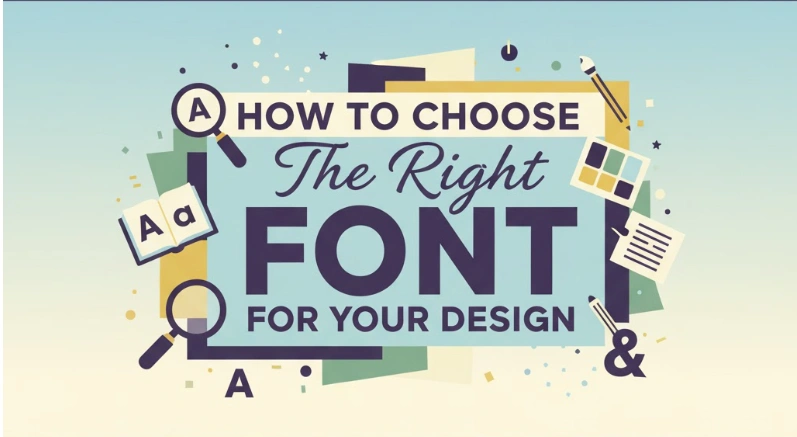
2. Why Choosing the Right Font Matters
Typography influences how your audience feels about your brand before they even read your words. A luxury perfume brand using a playful handwritten font would feel inconsistent, while a minimalist tech brand wouldn’t fit a decorative serif.
The right font helps you:
- Communicate tone and personality clearly.
- Create visual harmony and brand consistency.
- Capture attention and make your design memorable.
As noted by Adobe Fonts Blog, typography is both an art and a science — combining emotional storytelling with technical precision.
3. Understanding Font Classifications
Each font style has its own personality and best use case. Understanding them will help you make more intentional design choices.
Serif Fonts
Serifs are classic and timeless. They add elegance and trust to your design—perfect for editorials, fashion, or luxury branding.
💡 Try Rodger Arnoud Font, a modern serif with sophisticated curves that fits premium brands beautifully.
Sans Serif Fonts
Sans serif fonts look modern, clean, and highly readable. They’re excellent for digital designs, technology brands, and startups.
💡 Try Break Sucker Display Font, a bold and unique sans serif with character—perfect for eye-catching headlines.
Script Fonts
Display Fonts
Display fonts are decorative and made for attention. Use them for titles, posters, or logos—but sparingly.
💡 Dariena Floralie Font is a stunning floral-themed display font that brings creativity and luxury to any design.
For more insight, see Creative Bloq’s typography guide, which explains how font classification impacts visual tone.
4. How to Match Fonts with Design Purposes
Different design projects call for different font styles. Here’s how to make the right match:
a. Branding and Logos
Your logo font should reflect your brand’s core identity. Serif fonts communicate professionalism, sans serifs convey innovation, and scripts add personality.
Adobe Design suggests pairing fonts that balance contrast and harmony for a timeless brand feel.
b. Print Design
For printed media, readability is key. Serifs work beautifully for books or brochures because they guide the eye naturally through text.
c. Web Design
Screen readability matters most online. Sans serif fonts are the safest for websites and mobile interfaces, while display fonts can make headers stand out.
See Adobe Design’s article on responsive typography for deeper insights.
d. Social Media & Advertising
For social posts and campaigns, go bold. Use strong display fonts like Break Sucker Display Font for main messages and pair them with subtle sans serifs for balance.
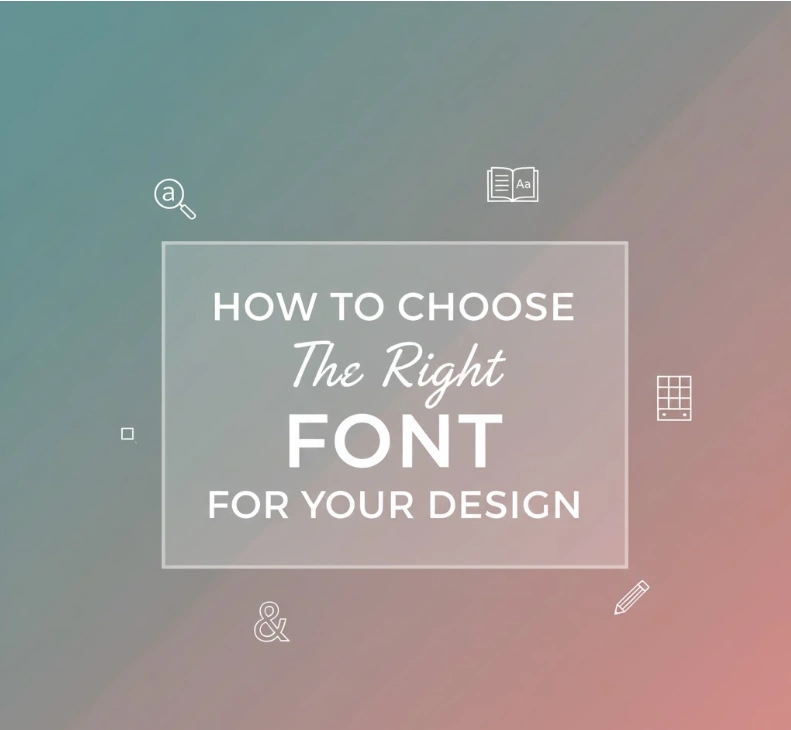
5. The Psychology of Typography
Fonts subconsciously influence how people feel about your design. Here’s what each major type communicates:
| Font Type | Conveys | Best Used For |
|---|---|---|
| Serif | Tradition, trust, class | Editorial, luxury, heritage brands |
| Sans Serif | Modernity, clarity | Startups, web design, tech |
| Script | Elegance, personality | Beauty, lifestyle, invitations |
| Display | Creativity, uniqueness | Ads, posters, packaging |
According to Adobe’s research on font psychology, typography directly affects emotional perception — making your choice crucial for brand messaging.
6. Common Mistakes When Choosing Fonts
Even skilled designers can slip up. Avoid these pitfalls:
- ❌ Using too many fonts in one design (stick to 2–3 max).
- ❌ Ignoring readability for style.
- ❌ Poor contrast between font and background.
- ❌ Overusing decorative fonts.
- ❌ Skipping device or print tests before publishing.
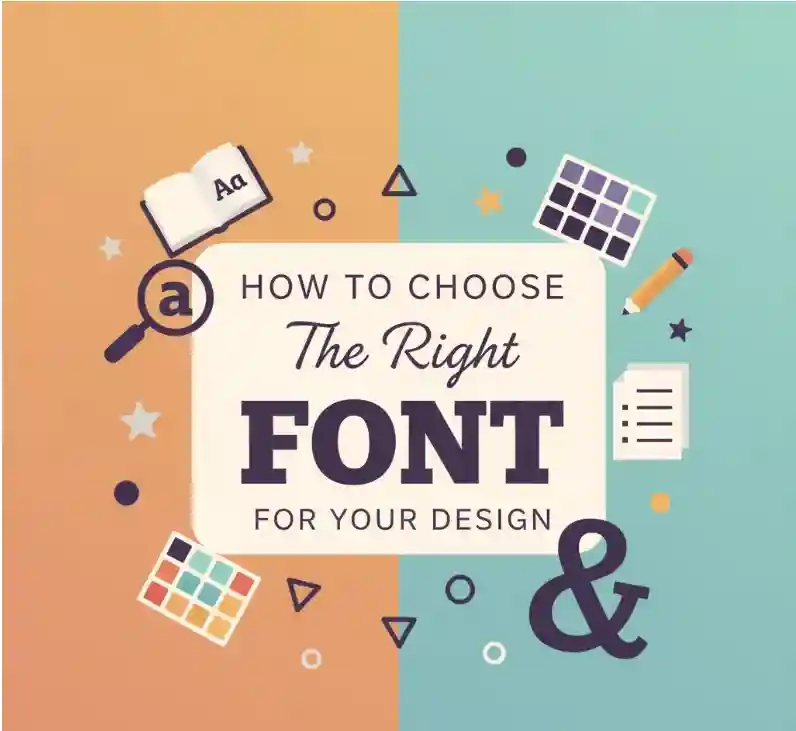
7. Recommended Fonts from RaisProject
Here are a few standout fonts from RaisProject that fit diverse design purposes:
- 🖋️ Rodger Arnoud Font — A refined serif for branding and editorial use.
- 💫 I Am Beautiful Font — Graceful script font ideal for luxury logos and personal branding.
- ⚡ Break Sucker Display Font — Bold, modern, and perfect for eye-catching posters or social media graphics.
- 🌸 Dariena Floralie Font — A creative floral display font that adds uniqueness to invitations and product packaging.
8. Final Thoughts
Choosing the right font is a mix of art, psychology, and strategy. The right typography doesn’t just decorate your design—it defines its personality and message.